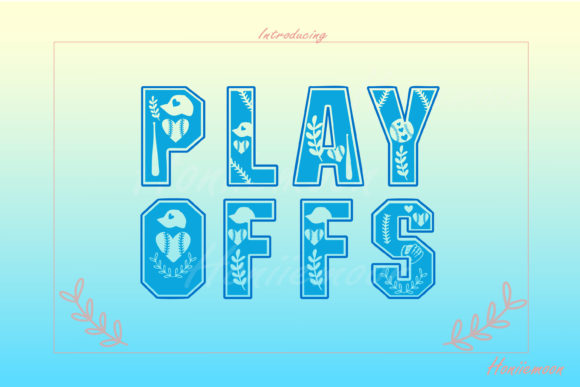
Journey into the realm of boundless creativity with Playoffs Font, a display font that captivates with its playful and lighthearted charm. Hailing from the innovative minds at Honiiemoon, this font family has earned its place as one of the Best Fonts for Web Design in 2016. Prepare to be mesmerized by its unique blend of cuteness and joyous energy, ready to elevate your designs to new heights.
Let your imagination run wild as you explore the limitless possibilities that Playoffs Font presents. Its playful curves and cheerful strokes dance across your screen, infusing your designs with an infectious sense of joy and wonder. Whether crafting logos, branding materials, or eye-catching headlines, Playoffs Font is your trusted companion, transforming ordinary text into captivating works of art.
Step into a world where design takes center stage, where every letter, every word, every sentence becomes a visual masterpiece. Playoffs Font's distinctive style adds a touch of whimsy and delight to any project, capturing the attention of your audience and leaving a lasting impression. Experience the thrill of creating designs that resonate, designs that spark conversations, and designs that leave a trail of smiles wherever they go.
With Playoffs Font, you're not just downloading a font; you're embarking on an artistic adventure, an exploration into the depths of creativity. Its versatility knows no bounds, adapting seamlessly to a myriad of design projects. From playful posters to vibrant social media posts, from enchanting invitations to captivating presentations, Playoffs Font is your ultimate creative weapon, transforming your ideas into visual masterpieces.
Unleash your inner artist and immerse yourself in a world where creativity reigns supreme. Playoffs Font is your gateway to a realm of endless possibilities, a font that ignites your imagination and fuels your passion for design. Embrace the joy of creating, the thrill of experimentation, and the satisfaction of witnessing your designs come to life.